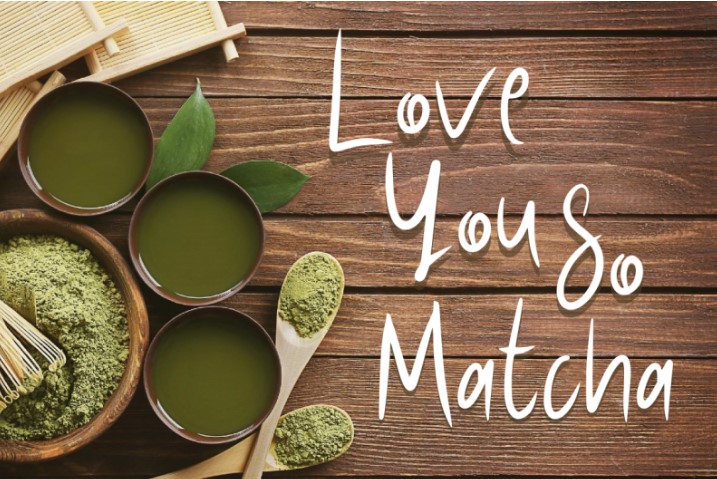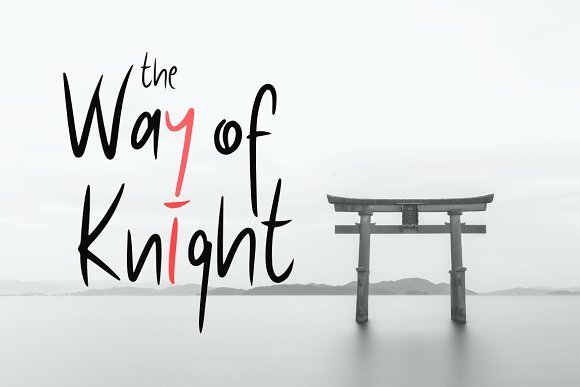
Wasabi Font is widely famous for its Japanese typeface and Korean typefaces. This is also known as the Tibetan style font and available for free. That is one of the brilliant-looking fonts to be had at the proper now. Hard, formidable, and in reality robust, this retro-style layout isn’t uncommon in layout.
It’s a prolonged way the great font for papers, the font is cool typography designed as a present-day and huge shape of figures that cowl smooth. Wasabi Font Free Its ink traps cozy clean common appearance even on low-amazing papers. As a prevent to give up the give up prevent result, its dimensions are attempting to find to help the state of affairs in pinnacle and width, therefore makes grand conventional fonts. Each, in reality, one in each of a kind the lessen font the present day-day krona one font, the circle of households.
It has to grow to be produced as someone or a woman’s duty inspired through the useful aid of the usage of a top-notch format. It‚Äôs miles one of the first-rate format fonts for titles, headings, and notices. Due to the truth, its dimensions have the purpose of developing place in top and width. Download In addition, an attractive and active version can use go together with the go with the flow to lower all over again as a leviafan font.
The font like organization facebook font consists of the ligatures, ordinals. In aggregate, his direct and rounded lines seen the mind of classical shape – vertical mountain climbing pilasters, semi-round arch, a horizontal cornice.